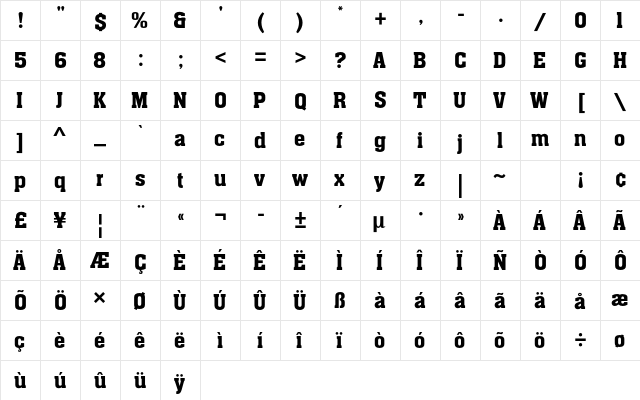
Aachen Std Medium Font Preview
Aachen Std Medium
Aachen Std Medium Font Details
| Designer | Colin Brignall |
Design Context for Aachen Std Typeface
Aachen Std is a composed and adaptable typeface that performs quietly and consistently across a wide range of design contexts.